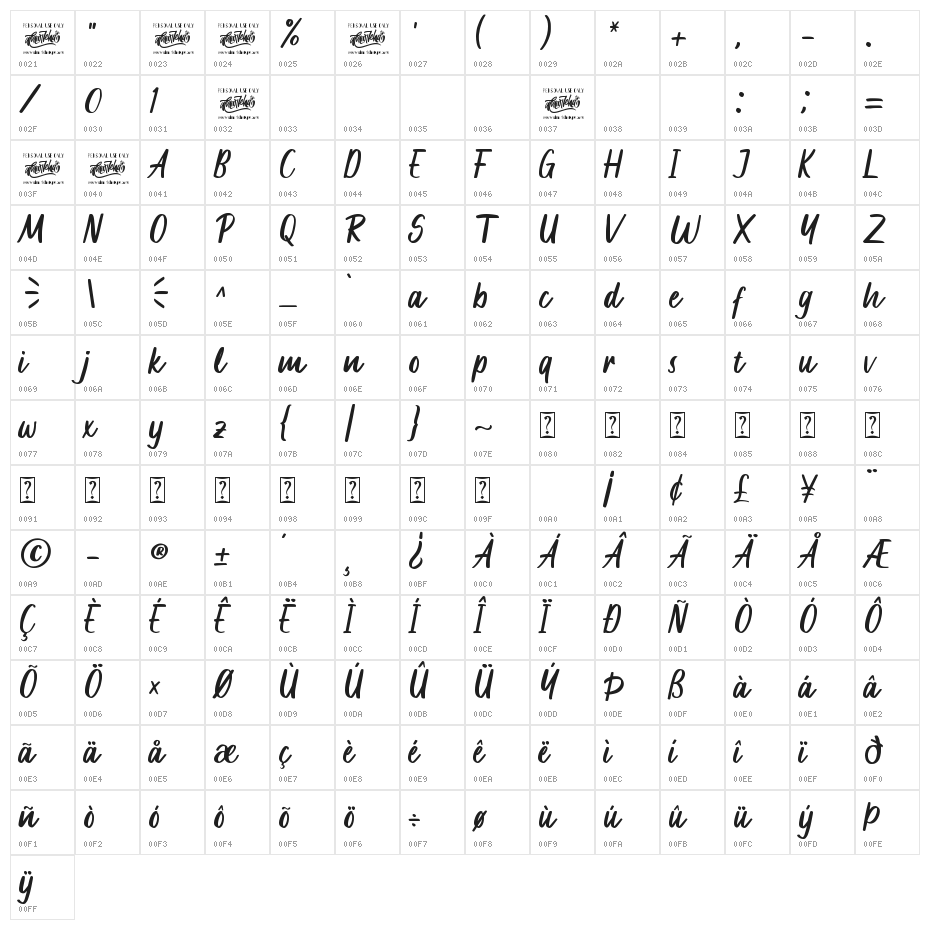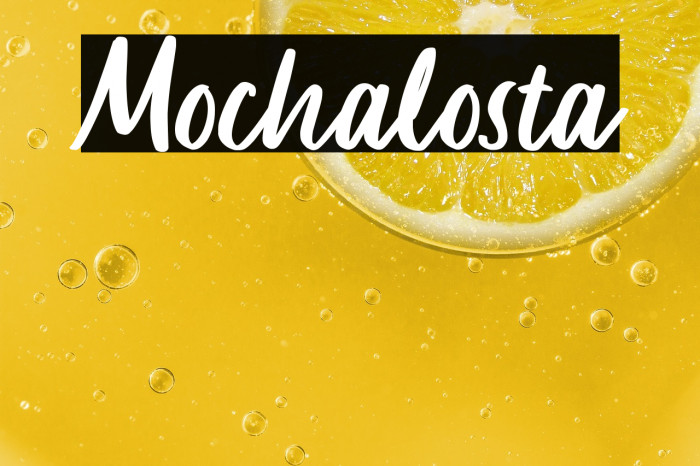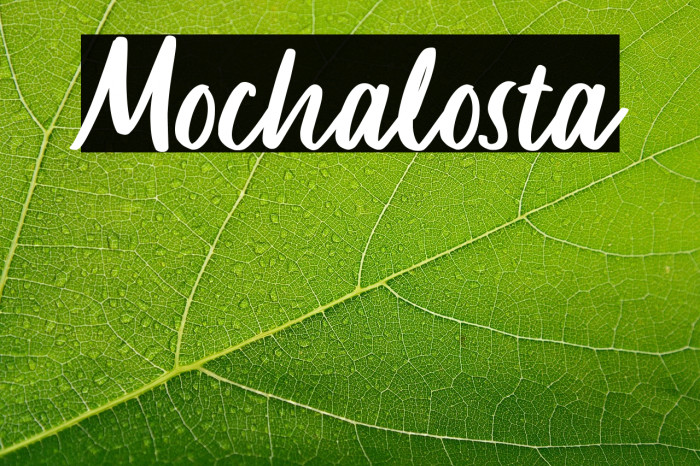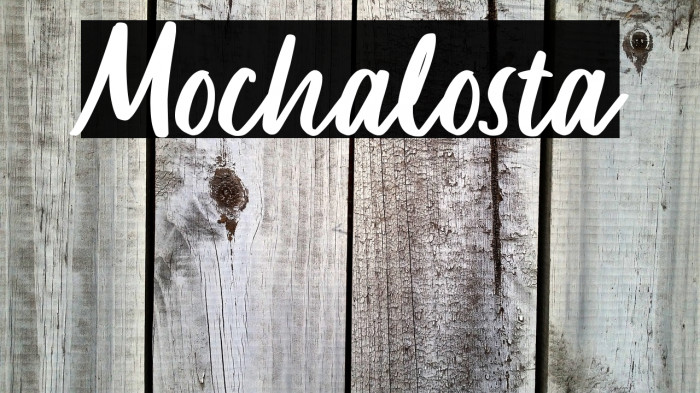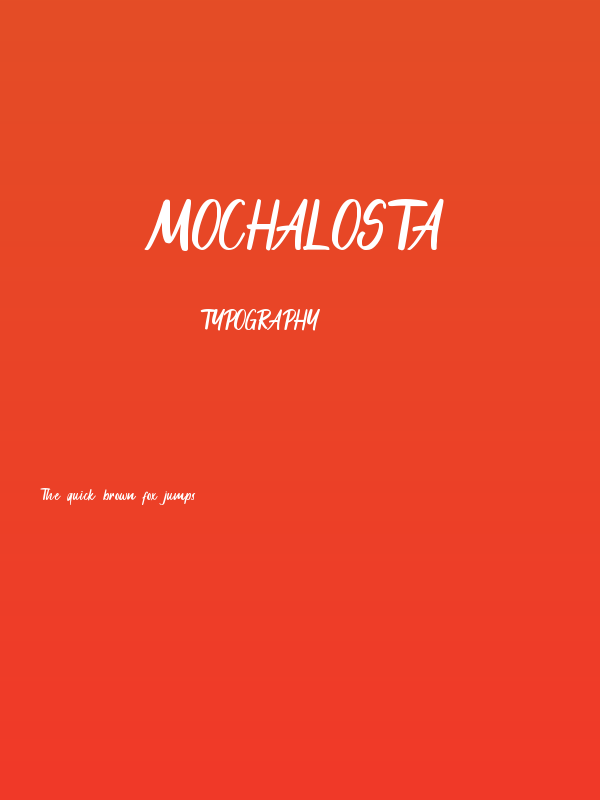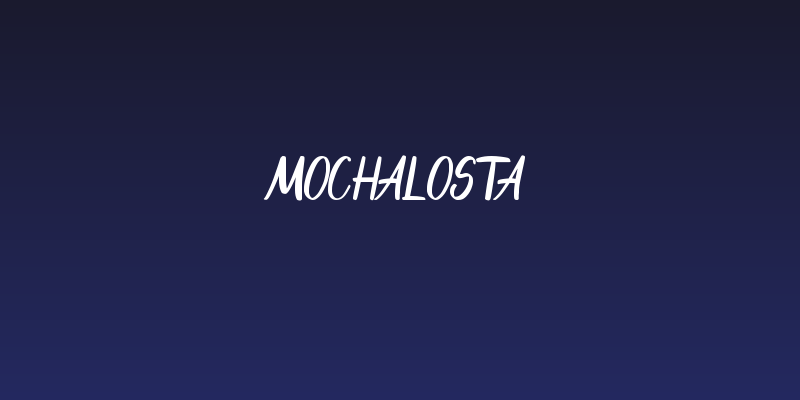
Mochalosta Font
Mochalosta Description
This font features a dynamic and expressive handwritten style, characterized by fluid strokes and a natural flow. The uppercase letters are bold and slightly slanted, giving a sense of movement and energy. The lowercase letters maintain a consistent style, with some letters extending below the baseline, adding to the font's casual and approachable feel. The numerals and special characters are crafted with the same attention to detail, ensuring a cohesive look across all elements. This font is ideal for projects that require a personal touch, such as invitations, greeting cards, or branding materials. Its unique style makes it stand out, while still being legible and versatile.